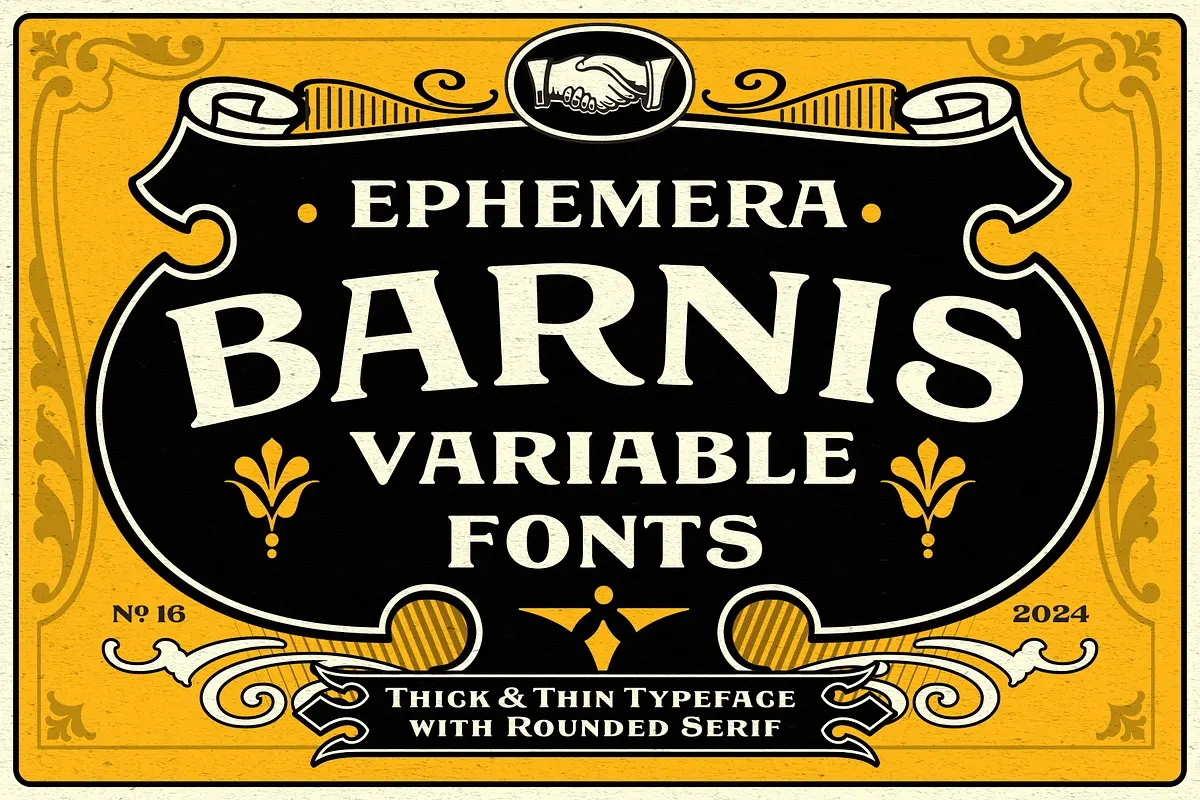
You must purchase this font for commercial use. However, you can download EFCO Barnis – Variable Fonts Free Download for testing purposes. EFCO Barnis is a versatile variable font that offers flexibility and customization in typography. With a wide range of weights and styles, this font is perfect for modern branding, editorial design, advertising, logos, and websites that require dynamic and adaptable type choices.
The variable nature of EFCO Barnis allows you to fine-tune the font's weight, width, and other attributes, giving you complete control over your design’s look and feel. Whether you're creating a minimalistic design or a bold statement, this font adapts beautifully, providing the creative freedom to explore various design possibilities.